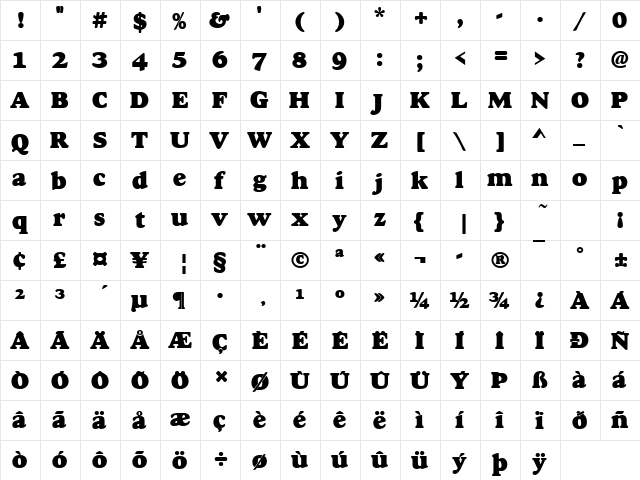
GoudyHeaP Regular
Design Context for GoudyHeaP Typeface
GoudyHeaP takes a measured approach to typography — its balanced proportions and neutral character make it a reliable workhorse for both digital and print work.